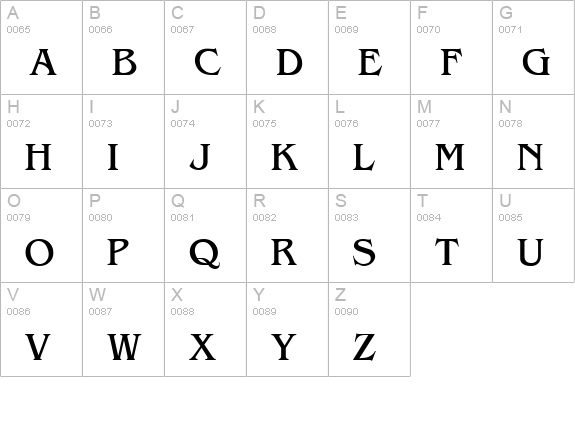
QTBengal Regular Font Details
QTBengal Regular is the standard, neutral variant in the QTBengal typeface family \xE2\x80\x94 well suited to general body text, paragraphs, and standard typographic work.
QTBengal Regular font is a visually stunning typeface that effortlessly combines elegance with a touch of modernity. Its sleek lines and balanced proportions make it the perfect choice for a wide range of creative projects, from branding and logo designs to advertising materials and website headers. With its clean and sophisticated appearance, QTBengal Regular font offers a timeless appeal that can elevate any design. Whether you're creating a professional presentation or a visually captivating poster, this font will ensure that your message is delivered with clarity and style. What makes QTBengal Regular font even more enticing is that it is available for free download at FontsMarket.com. This means that you can access this exceptional font without any cost, allowing you to enhance your designs without breaking the bank. FontsMarket.com provides a reliable platform for designers and enthusiasts to discover and acquire high-quality fonts, and QTBengal Regular font is a shining example of their extensive collection. By downloading QTBengal Regular font, you are not only gaining access to a versatile and visually appealing typeface, but you are also embracing the freedom to explore your creativity without any limitations. Let QTBengal Regular font be your go-to choice for all your design needs, and watch your projects come to life with its distinctive and captivating presence. Don't miss out on the opportunity to enhance your designs with this elegant and versatile font. Visit FontsMarket.com today and download QTBengal Regular font for free, and unlock a world of creative possibilities.